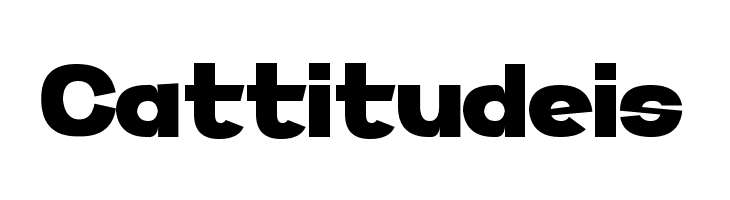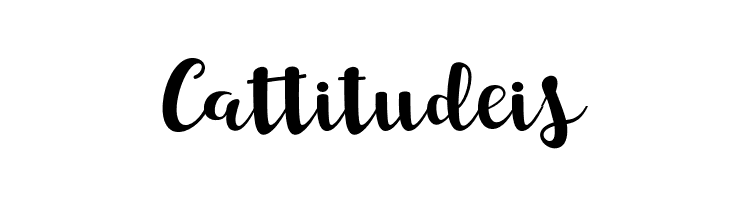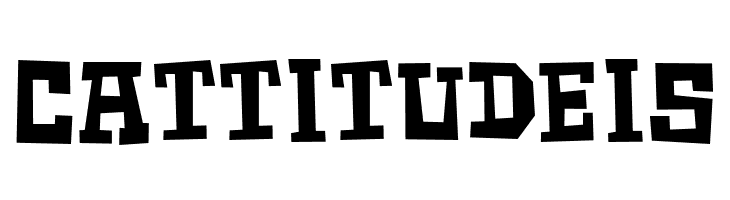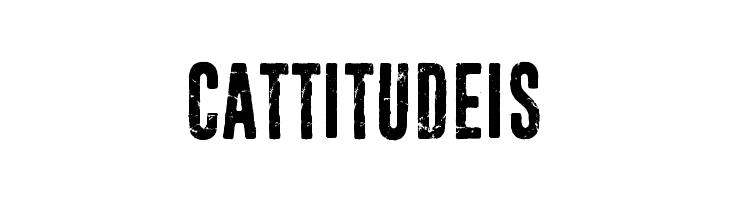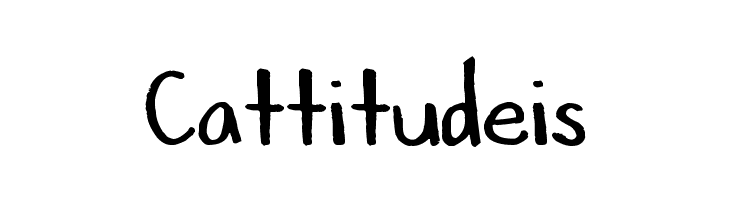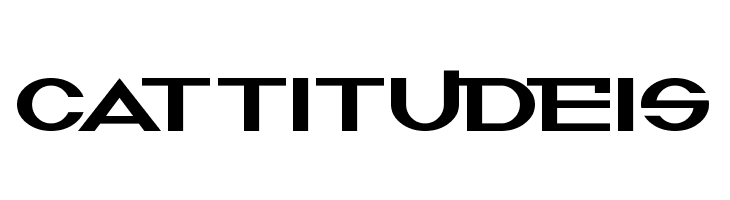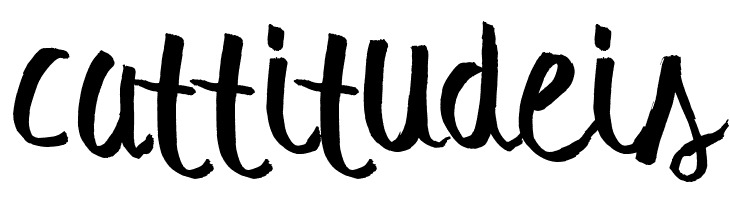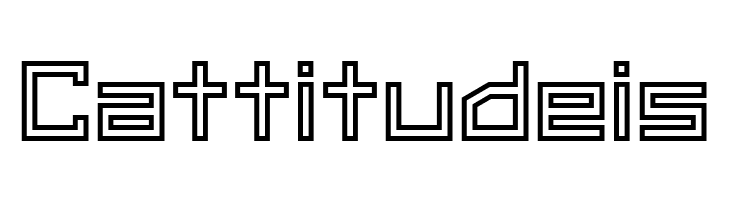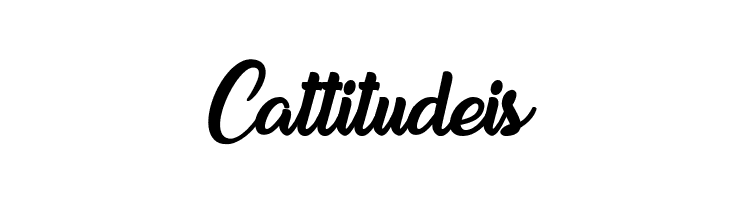
A sleek, thin, and italicized font with a modern and elegant style.
A bold, edgy font with unique skull-like details for a rebellious look.
A sleek, modern font with geometric and futuristic design elements.
A bold, modern sans-serif font with a clean and geometric design.
A modern, light, sans-serif font with geometric and minimalist design.
A bold, hand-drawn script font with a lively and informal style.
A playful and whimsical font with curly, swirling elements.
A bold, geometric font with a futuristic and modern style.
A bold, expressive handwritten font with dynamic strokes and a brush-like texture.
A bold, distressed font with a vintage, grunge aesthetic.
A bold, expressive script font with flowing, cursive letterforms.
A bold, hand-painted style font with thick, uneven strokes and a playful, dynamic feel.
A bold, cursive font with a smooth, flowing style.
A bold, decorative font with a playful striped pattern.
A dynamic and elegant cursive script with bold, flowing strokes.
A bold, modern typeface with geometric, rounded characters.
A geometric, outline font with a futuristic and digital style.
A bold, hand-drawn font with a sketchy, expressive style.
A bold, jagged font with sharp, angular edges and high contrast.
A bold, futuristic font with rounded edges and a blocky structure.
A bold, dynamic font with blocky, angular characters and exaggerated serifs.
A bold, textured font with a wave-like pattern, ideal for decorative use.
A playful, candy-inspired font with bold, rounded letters connected by circular elements.
A bold, flowing script font with elegant curves and dynamic movement.
A bold, dynamic script font with fluid, cursive letterforms.
A decorative script font with elegant swirls and high contrast strokes.
A bold, cursive font with smooth, connected lines and a handwritten feel.
An elegant and artistic script font with flowing, intricate letterforms.
An elegant and flowing script font with intricate swirls and loops.
A bold, cursive font with interconnected, flowing characters.
A playful, bold handwritten font with rounded strokes and a casual style.
A bold, geometric font with sharp angles and high contrast, reminiscent of Gothic styles.